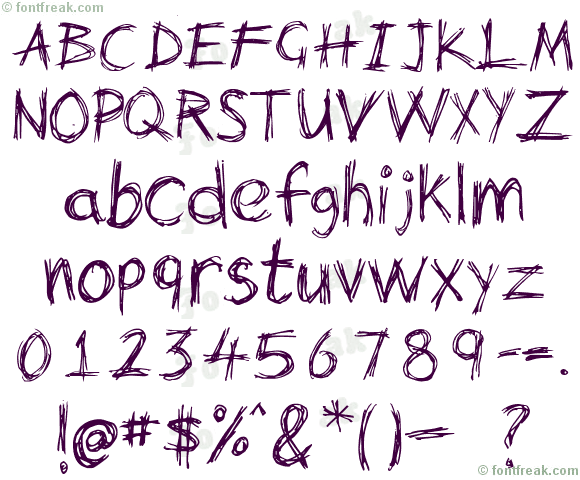
Scratch
About Scratch
The Scratch font by FONTASTIC! is a unique handwritten typeface that exudes a playful and informal charm. With its irregular strokes and slightly uneven baseline, it captures the essence of spontaneous creativity. The font features a medium stroke weight, giving it a friendly and accessible appearance, while the open spacing between letters enhances readability, making it suitable for various applications.
Scratch is ideal for use cases where a personal touch is desired. It works wonderfully for wedding invitations, where its whimsical style can convey joy and celebration. Additionally, it can elevate movie posters by adding a sense of excitement and fun, making it perfect for family films or comedies. Restaurant menus can also benefit from Scratch's approachable vibe, creating an inviting atmosphere for diners. Content creators will find this font useful for social media graphics, as its distinctive style can capture attention in crowded feeds. Graphic designers looking to add a unique flair to their projects will appreciate the versatility of Scratch.
Targeting small business owners, graphic designers, and content creators, Scratch is a font that stands out in a sea of conventional typefaces. Its freeware license makes it accessible for those on a budget, allowing users to incorporate a touch of creativity without financial constraints. The playful nuances of Scratch make it a go-to choice for designs that aim to evoke emotion and connection. Whether you're crafting a heartfelt invitation or an eye-catching promotional piece, the Scratch font free download offers a delightful option that will leave a lasting impression. Its distinctive character and versatility ensure that it will be a valuable addition to any designer's toolkit.